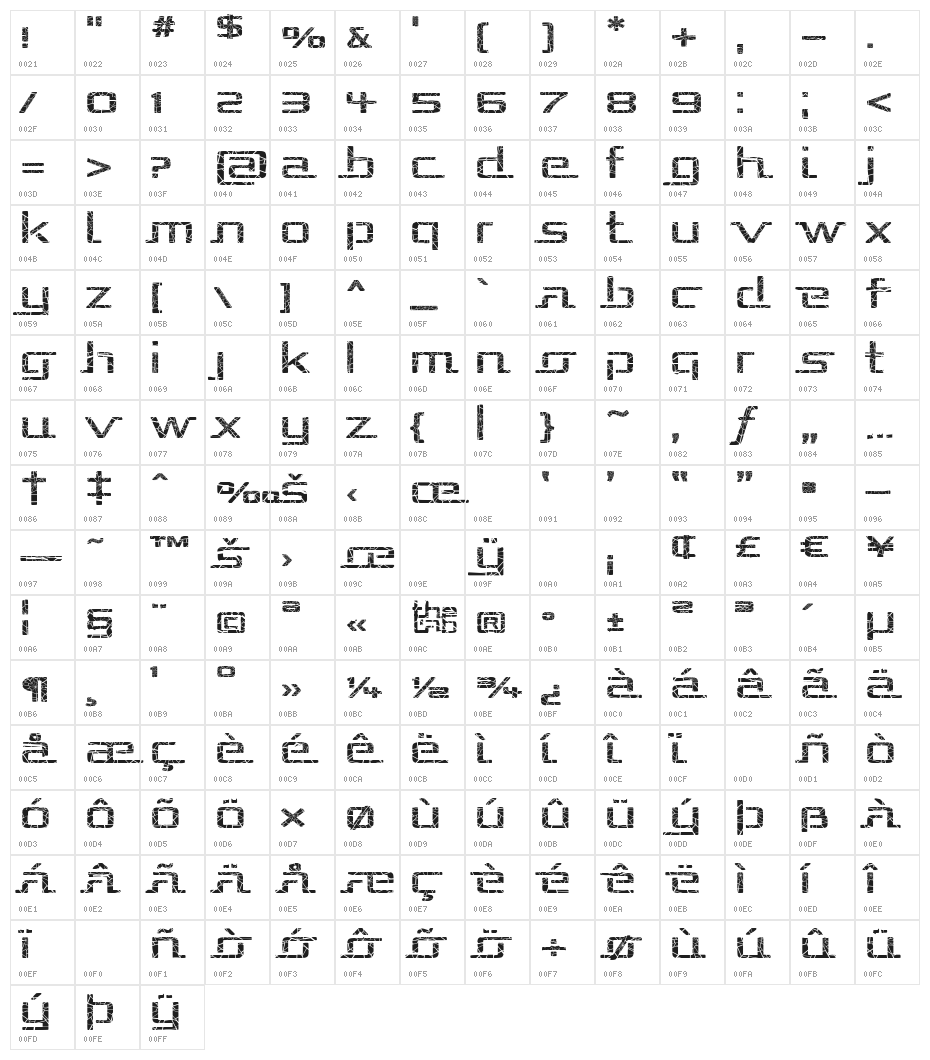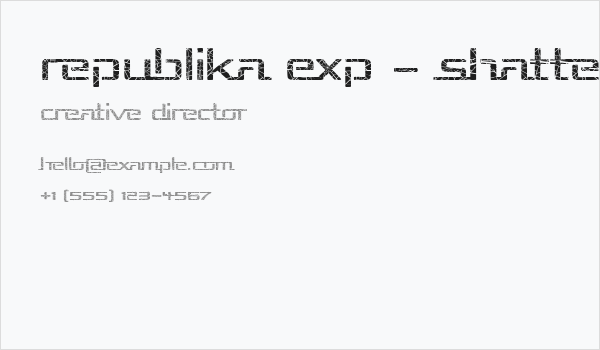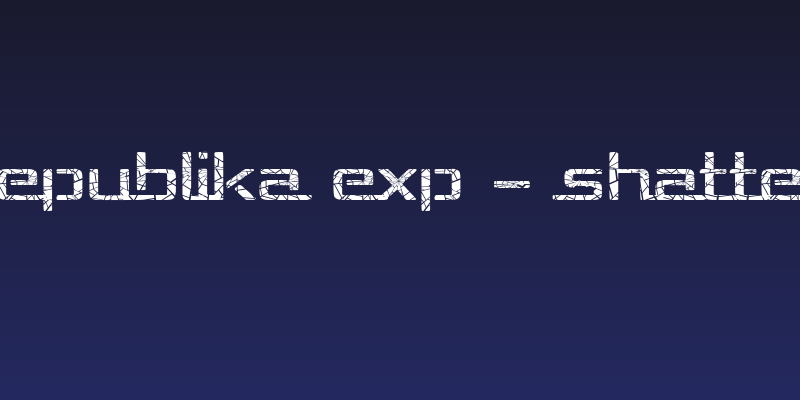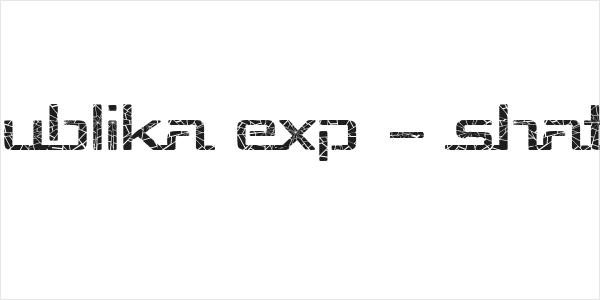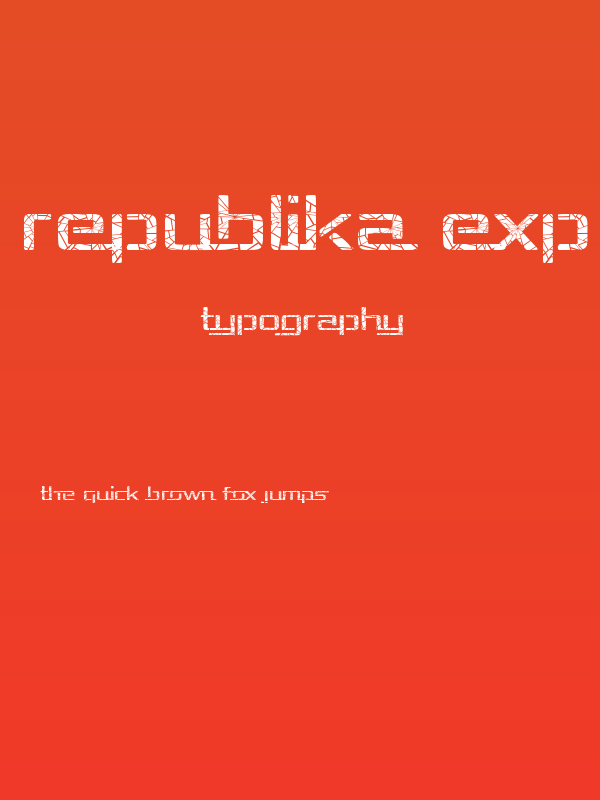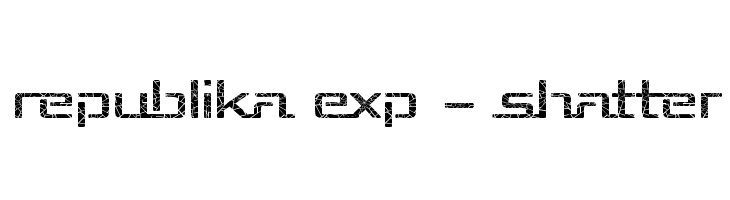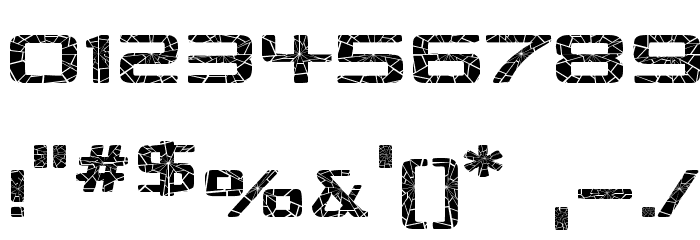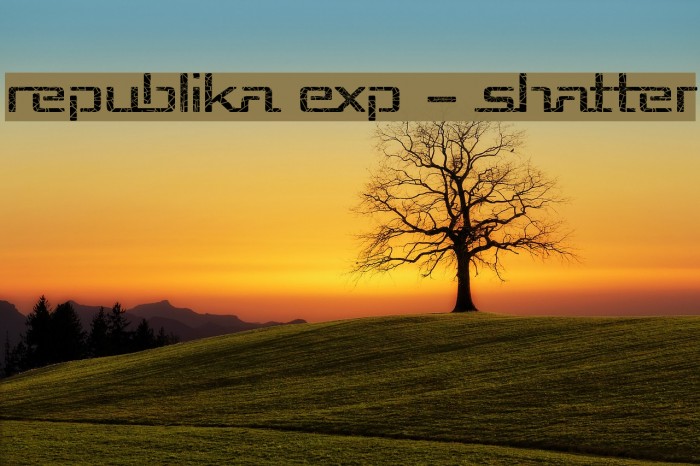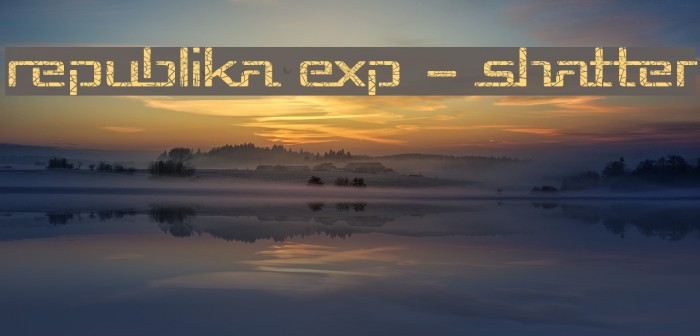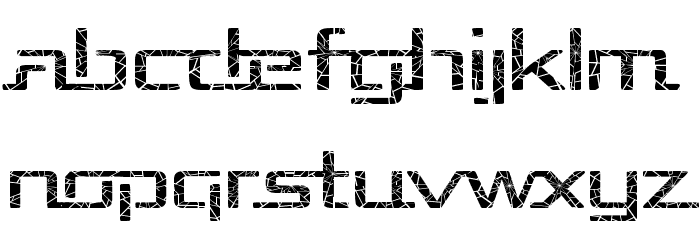
Republika Exp - Shatter Font
Republika Exp - Shatter Description
This font features a unique shattered effect, giving each character a fragmented and dynamic appearance. The design incorporates geometric shapes that create an illusion of broken glass, adding a sense of movement and energy. The characters maintain a consistent structure, ensuring readability despite the intricate detailing. This font is particularly striking in larger sizes, where the shattered effect can be fully appreciated. The overall look is modern and edgy, making it suitable for projects that require a bold and unconventional aesthetic.
| Proposed Projects | Ideal for album covers, event posters, video game titles, and branding for edgy or modern products. |